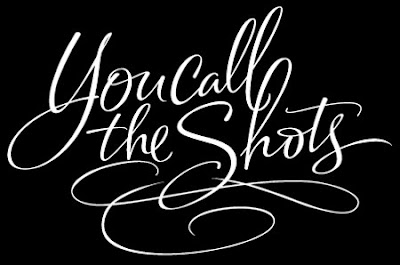
Another quick wrist script exercise with a Lamy calligraphy pen on graph paper. I made the strokes thicker with a Sharpie marker and scanned the lettering for use as a template.